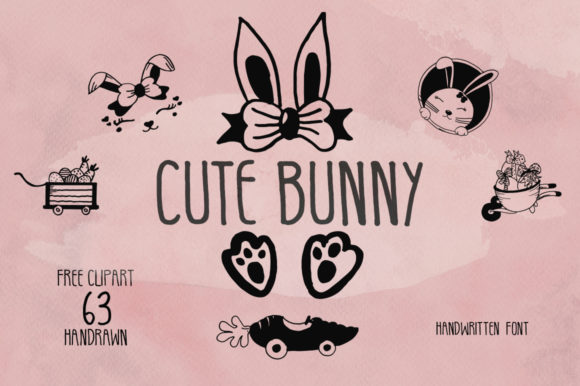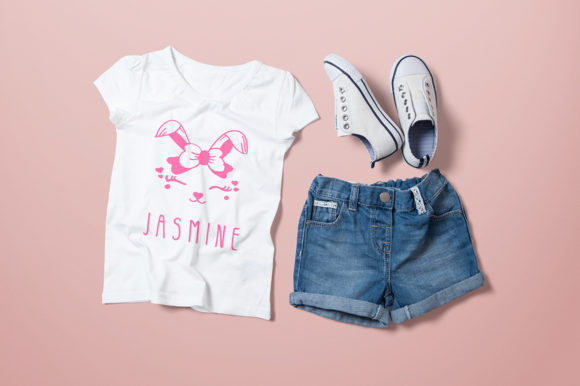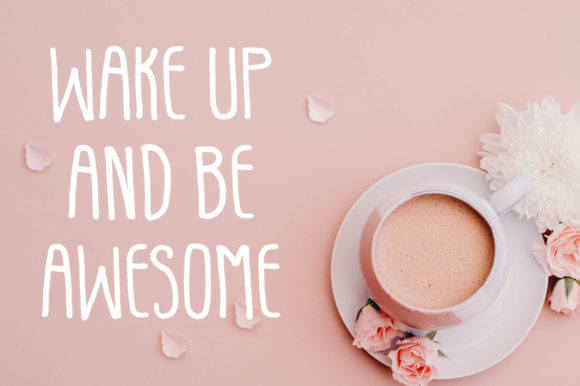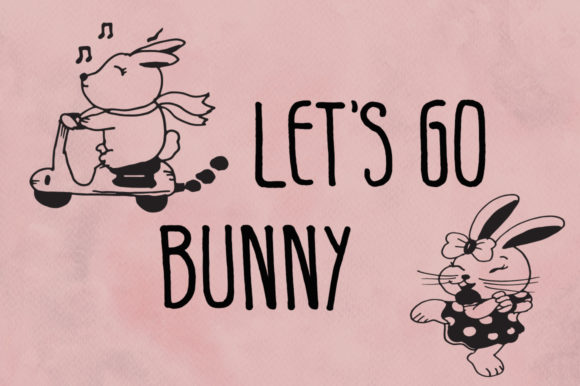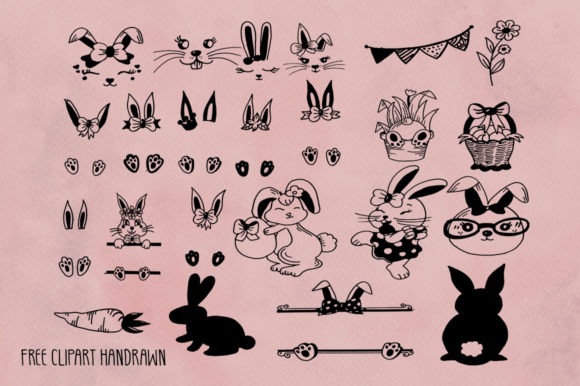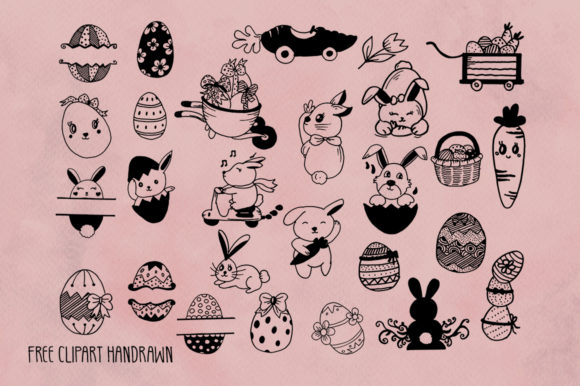
Cute Bunny Font
About Cute Bunny Font
Cute Bunny is a cute and casual handwritten font with an incredibly friendly feel. Whether you’re looking for fonts for Instagram or calligraphy scripts for DIY projects, this font will turn any creative idea into a true piece of art!